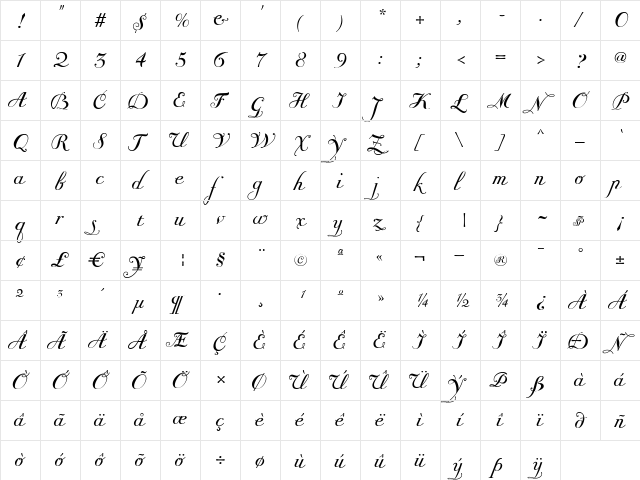
GiambattistaDrei Script
| Style | Script |
Design Context for GiambattistaDrei Typeface
GiambattistaDrei brings a calligraphic fluidity to the page — its connecting strokes and expressive curves give it an unmistakably human quality.
Font Pairing: Combine GiambattistaDrei with a simple geometric sans for maximum contrast — the tension between flowing curves and clean structure is a classic typographic pairing.
Pro Tip: Pair GiambattistaDrei with a clean sans-serif for supporting text. The contrast between fluid script and geometric structure creates an elegant typographic hierarchy.